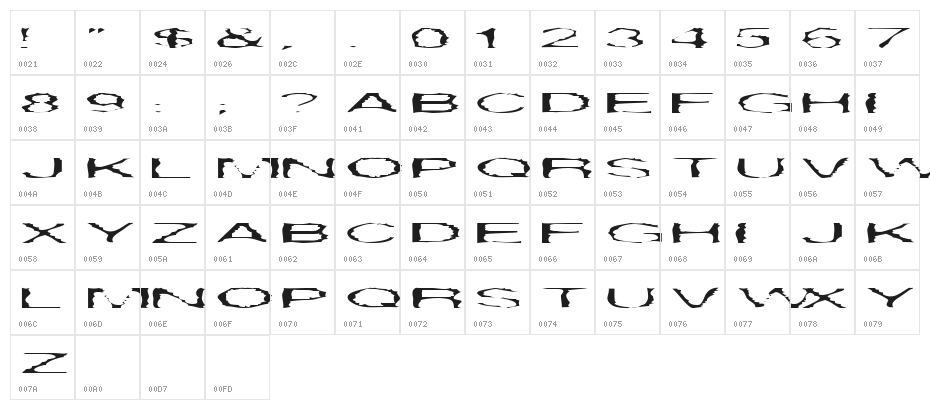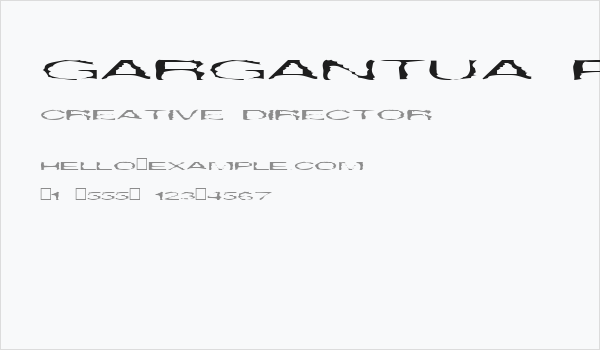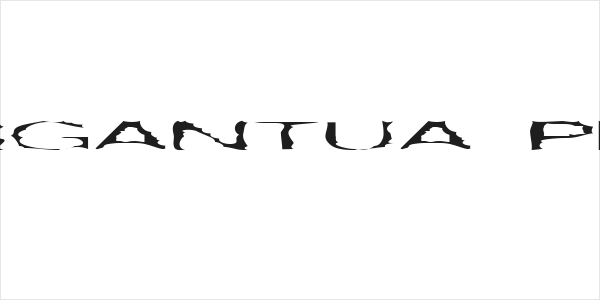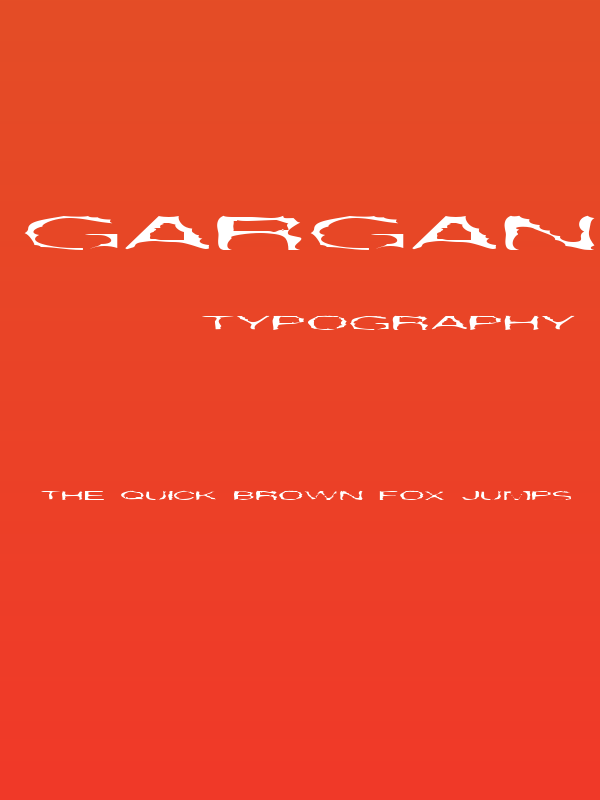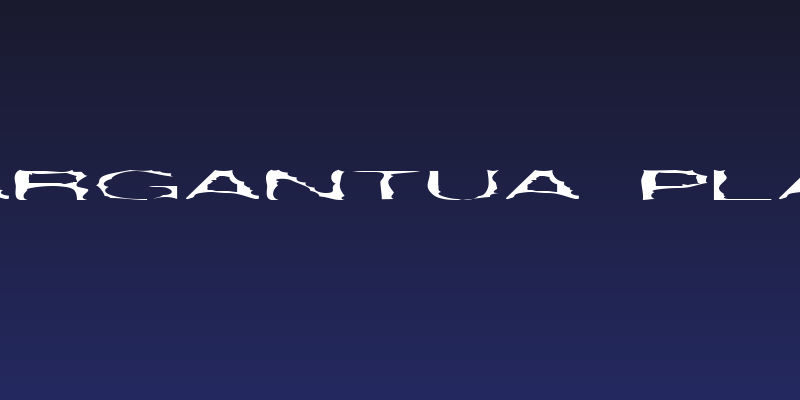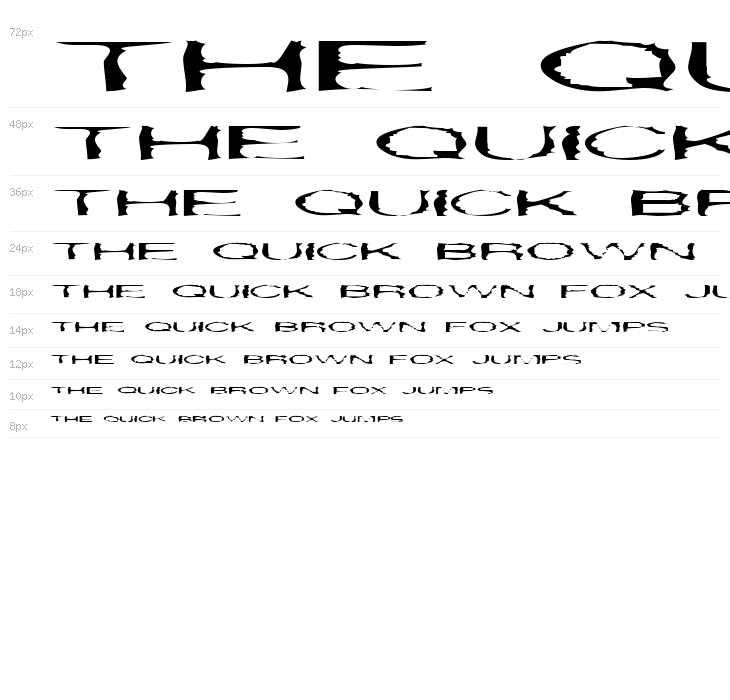
Gargantua Plain Font
Gargantua Plain Description
This font exhibits a bold and distressed style, characterized by its rough, uneven edges and a grunge-like appearance. The uppercase and lowercase letters maintain a consistent height, creating a uniform look despite the chaotic texture. The numerals and special characters follow the same aesthetic, ensuring a cohesive design throughout. Its unique, edgy style makes it stand out, perfect for projects that require a bold statement. The font's irregularities give it a hand-crafted feel, adding to its charm and appeal.
| Proposed Projects | Ideal for album covers, posters, branding for edgy or alternative products, and any design needing a bold, artistic touch. |